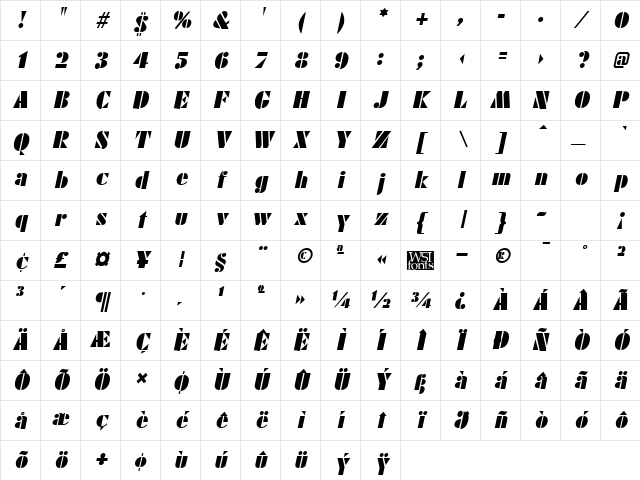
Complete FuturistBlack Italic glyph index. Displaying only characters natively supported by FuturistBlack Italic font.
FuturistBlack has a distinctly futuristic character, with geometric precision and clean angles that feel at home in technology, gaming, and sci-fi contexts. The slanted form adds forward momentum and visual energy.